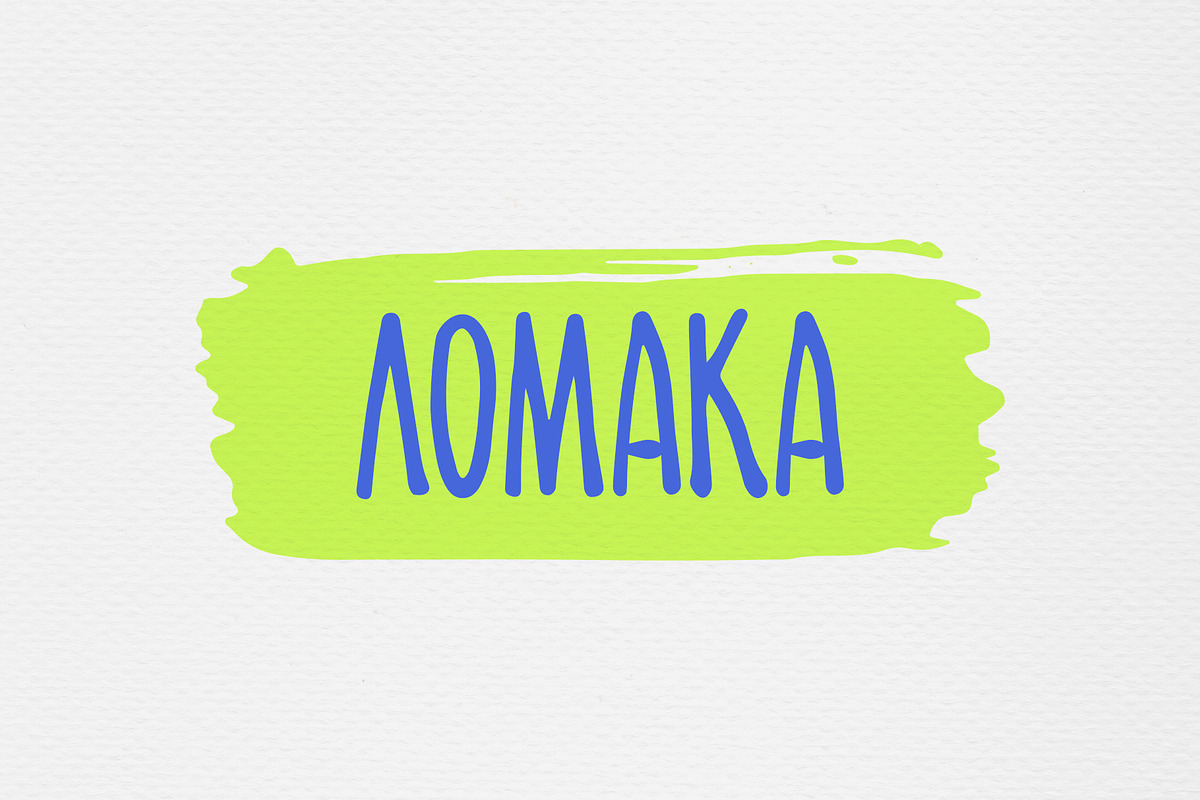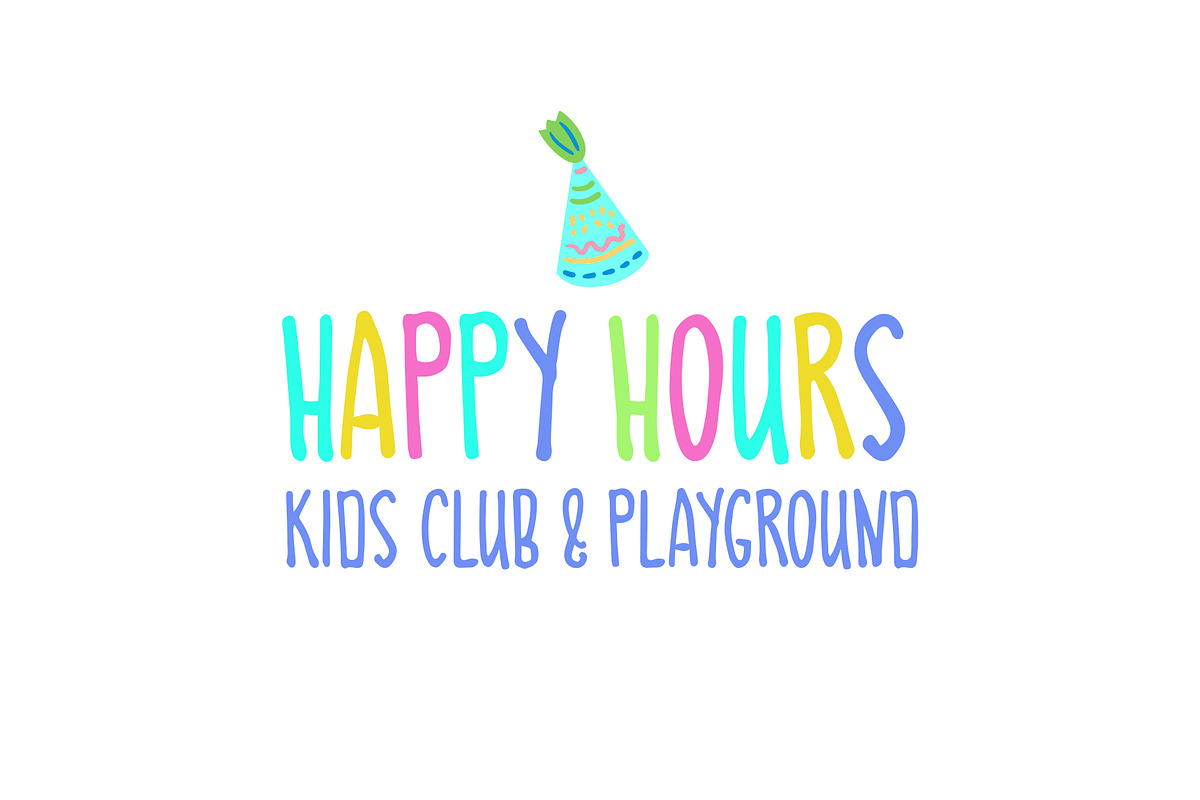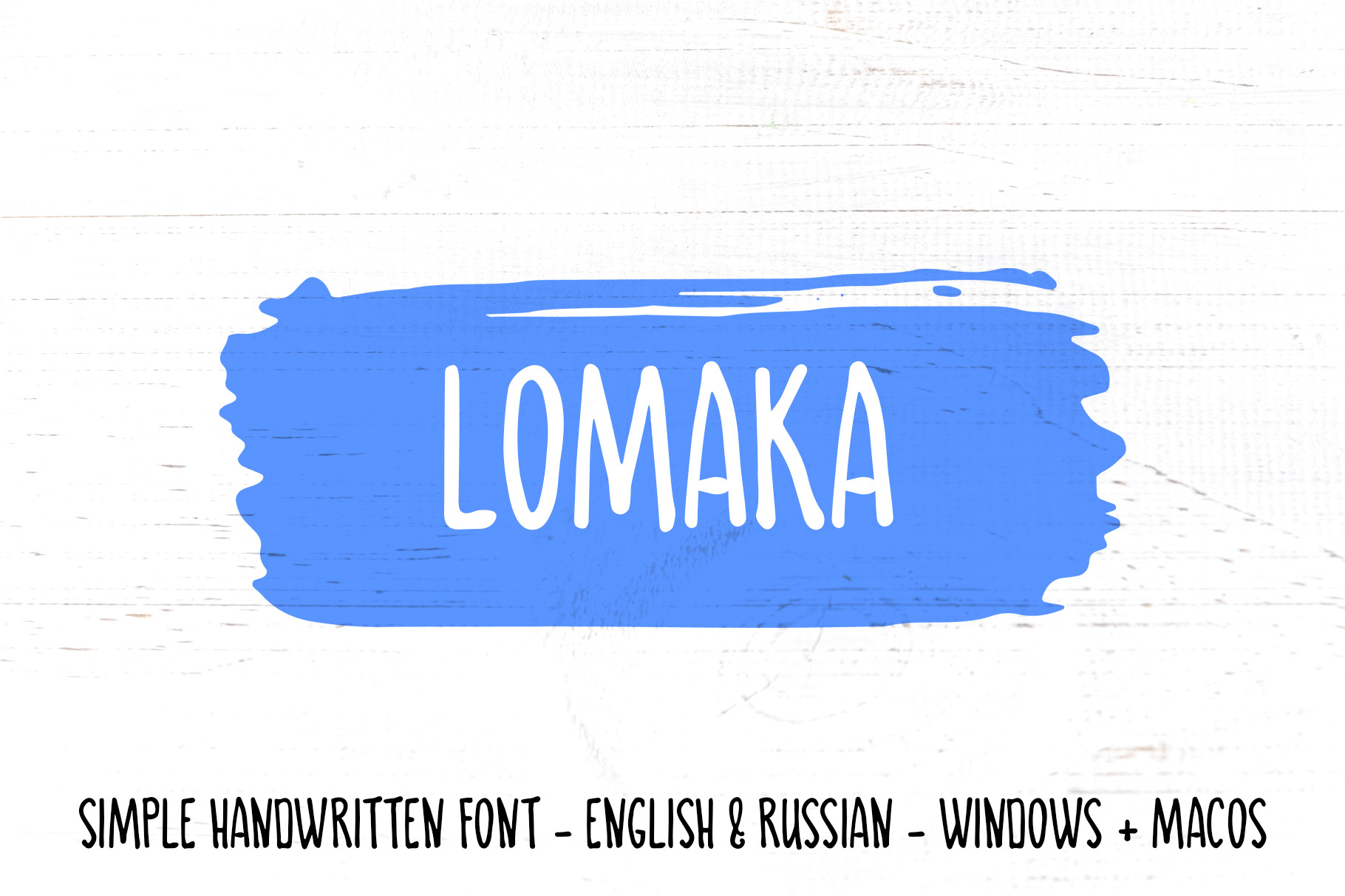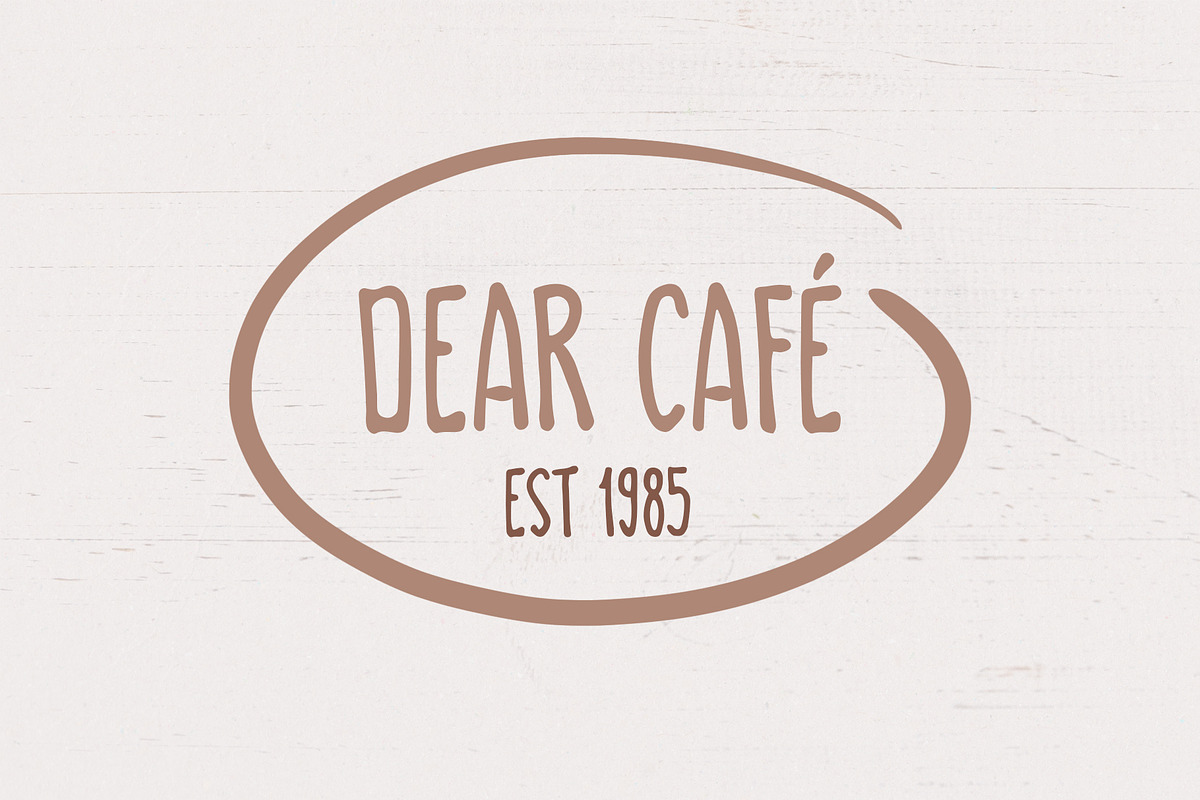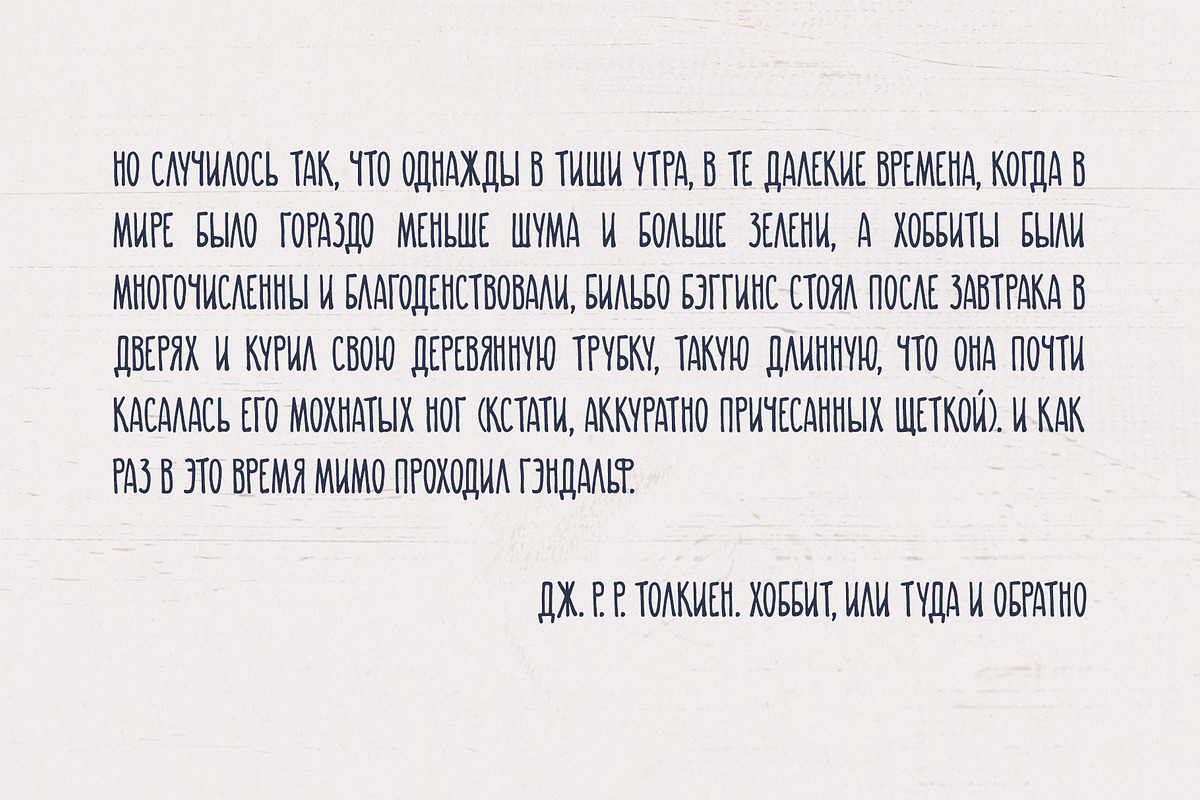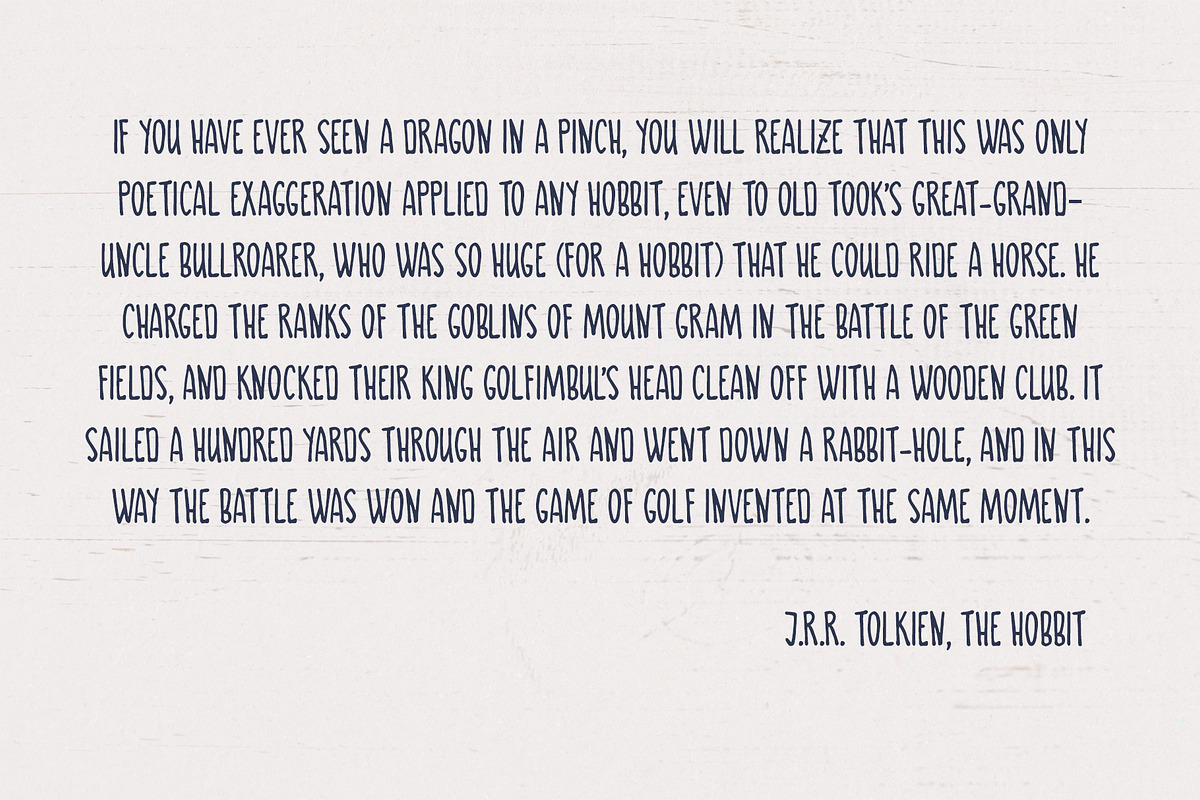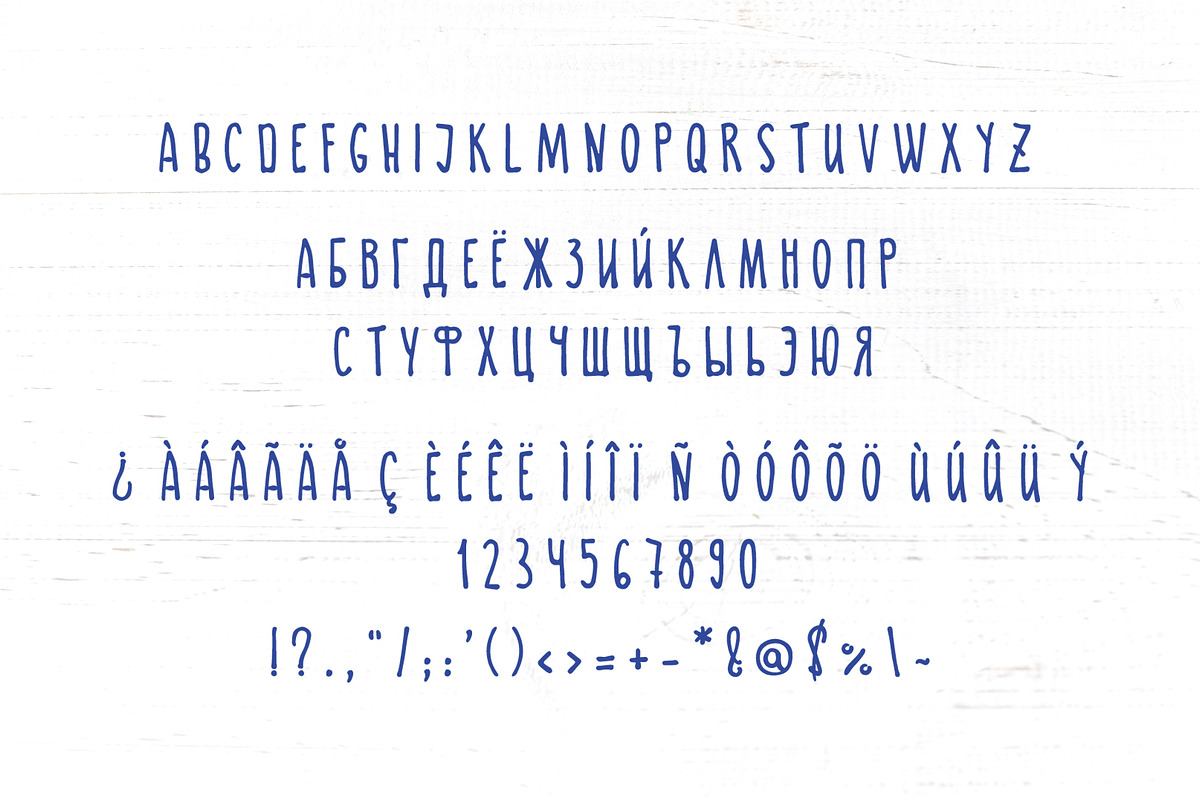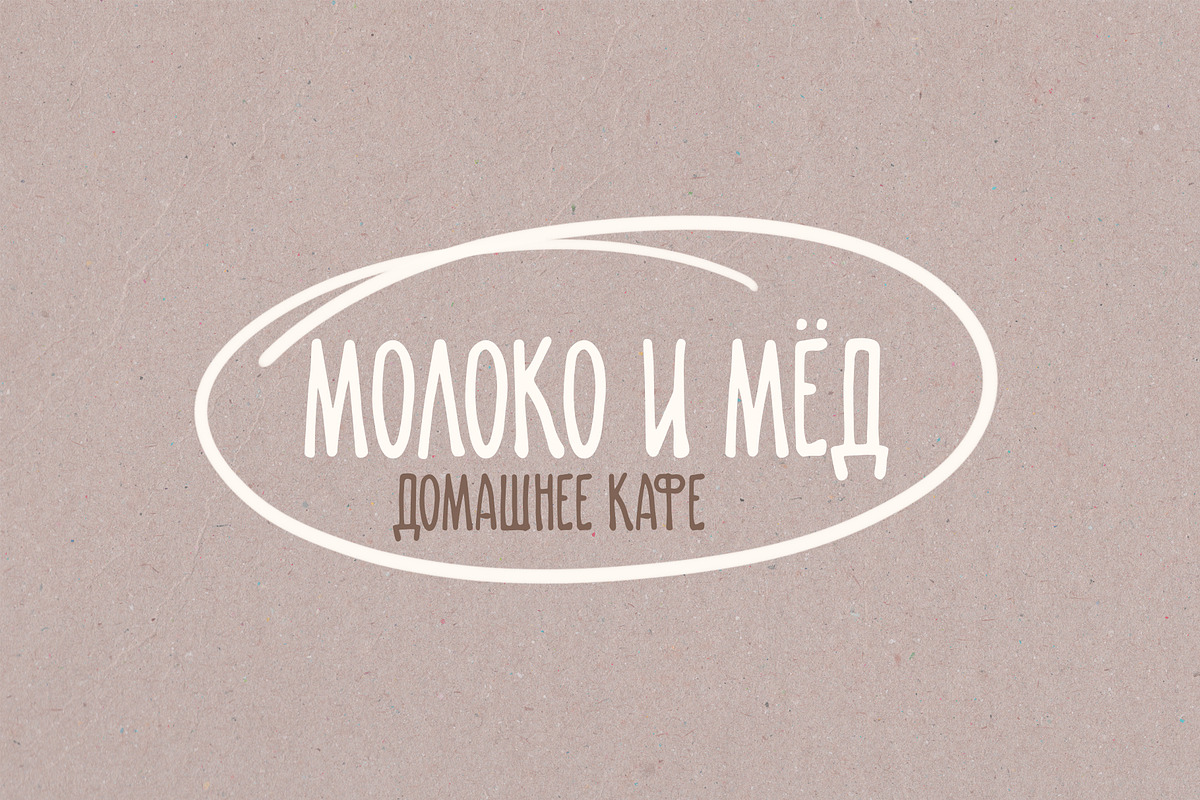
Lomaka Childish Handwritten Font
Lomaka is a childish, playful handwritten font with straight vertical glyphs, perfect as a display font and as a text font! It contains English and Russian alphabet, international letters for European languages, numbers and punctuation signs. It is capital, bold, hipster and modern!